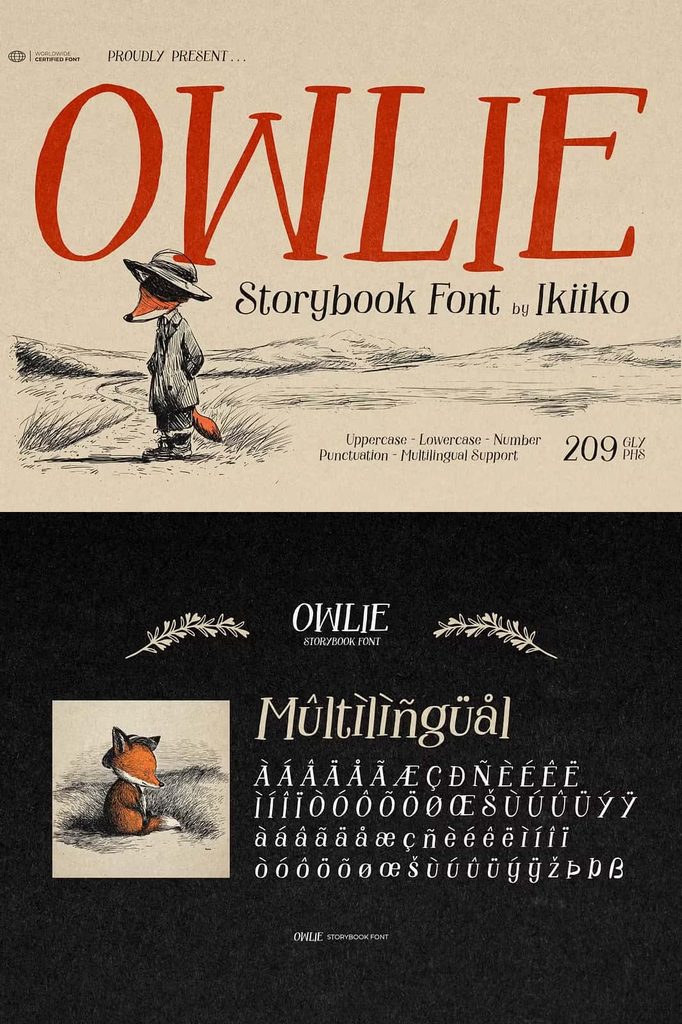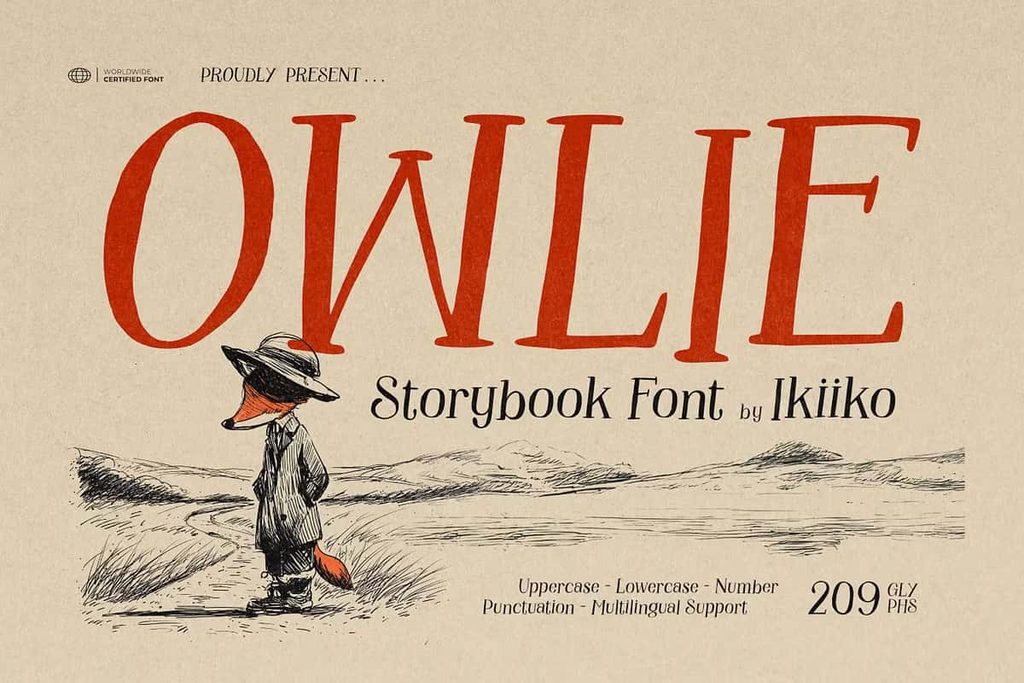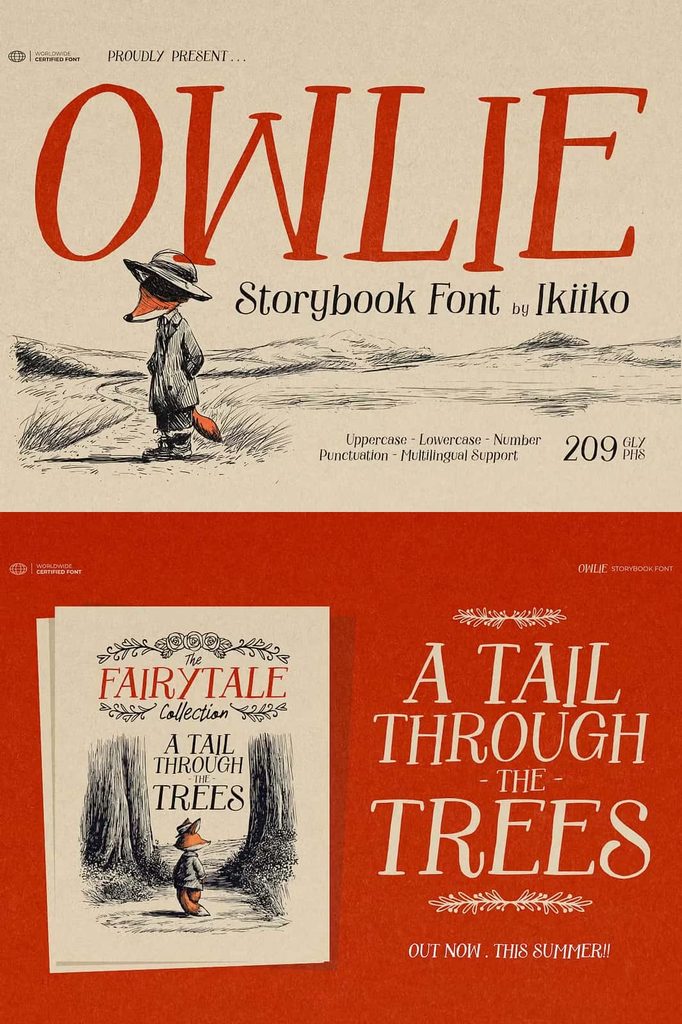
Owlie Storybook Font: A Whimsical Typeface Full of Imagination
Bring a sense of wonder, warmth, and imagination to your creative projects with Owlie, a charming storybook font inspired by childhood tales, magical adventures, and the simple beauty of handmade lettering. Owlie combines fairy-tale personality with organic handwritten details, creating a typeface that feels friendly, personal, and full of character.
Every letter carries a playful rhythm that makes your words feel like part of a story. Instead of relying on rigid geometric forms, Owlie embraces natural curves, expressive strokes, and handcrafted imperfections. This approach gives the font an authentic personality that works especially well when you want your typography to feel warm and approachable.
Whether you design children’s books, nursery artwork, greeting cards, invitations, packaging, posters, stationery, or branding, Owlie can help you create a memorable visual identity. Its relaxed handwriting style adds emotion to ordinary words and transforms simple phrases into engaging pieces of lettering.
A Storybook Font Inspired by Childhood Magic
Owlie captures the feeling of opening a favorite storybook and stepping into another world. Its soft curves and playful letterforms create an atmosphere filled with curiosity and imagination. The design feels nostalgic without becoming overly traditional, allowing it to fit both classic storybook concepts and modern creative projects.
The typeface works beautifully when a design needs a gentle and imaginative voice. Use it to create titles that feel like handwritten notes from a magical character, charming names for children’s products, or playful messages that immediately capture attention. Owlie encourages designers to move beyond ordinary typography and build a visual experience around every word.
Its handmade appearance also helps establish a stronger emotional connection with an audience. Instead of presenting text as a purely functional element, Owlie makes typography feel like part of the illustration and storytelling process.
Handmade Curves and Organic Lettering
One of Owlie’s defining qualities comes from its organic handwriting style. The letterforms flow naturally across the page, creating a relaxed appearance that resembles carefully crafted lettering made by hand. The imperfect details add charm and prevent the typeface from feeling mechanical.
The dreamy curves give Owlie a soft visual character that works particularly well with playful compositions. You can use the font for large headlines, short phrases, product names, quotes, labels, and decorative typography. The expressive shapes help each word stand out while maintaining a friendly and readable personality.
Why Handmade Typography Works
Handmade fonts can make a design feel more human. They introduce subtle variations and organic movement that standard fonts often cannot provide. Owlie uses this quality to create a sense of authenticity and warmth.
When you pair Owlie with illustrations, watercolor artwork, textured backgrounds, or simple decorative elements, the font can become an important part of the overall visual story. Its personality allows designers to create compositions that feel crafted rather than mass-produced.
Perfect for Children’s and Storybook Designs
Owlie naturally suits projects connected to children, education, imagination, and storytelling. Its playful appearance can bring personality to children’s books, activity sheets, nursery posters, educational materials, character designs, and classroom decorations.
Use Owlie for a storybook title to create an inviting first impression. Add it to character names or chapter headings to reinforce the playful atmosphere. You can also combine it with illustrations to create cohesive children’s branding that feels friendly and memorable.
The font can also work well for parents and family-oriented businesses. Nursery products, children’s clothing, toys, personalized gifts, baby announcements, and family stationery can all benefit from its warm handwritten aesthetic.
Creative Uses for Owlie
Owlie gives designers plenty of opportunities to explore playful and imaginative typography. Its expressive style makes it especially effective for projects where personality matters as much as readability.
Children’s Books and Storytelling
Create charming book titles, chapter headings, character names, and illustrated quotes with Owlie. Its storybook personality immediately supports themes of adventure, fantasy, friendship, and childhood discovery.
Nursery and Kids’ Decor
Design nursery prints, wall art, name signs, educational posters, and decorative quotes with a soft and playful atmosphere. Owlie can add a handmade touch to both personalized and ready-made children’s artwork.
Invitations and Stationery
Use Owlie for birthday invitations, baby announcements, thank-you cards, greeting cards, party stationery, and other personal designs. The handwritten appearance gives each message a more intimate and thoughtful feel.
If you want to make your typography feel more personal, imaginative, and expressive, Owlie offers a charming solution. Let its organic letterforms guide your design toward a world of fairy tales, childhood memories, and creative possibilities. With the right combination of illustrations, colors, textures, and supporting fonts, Owlie can turn simple words into an inviting visual story.